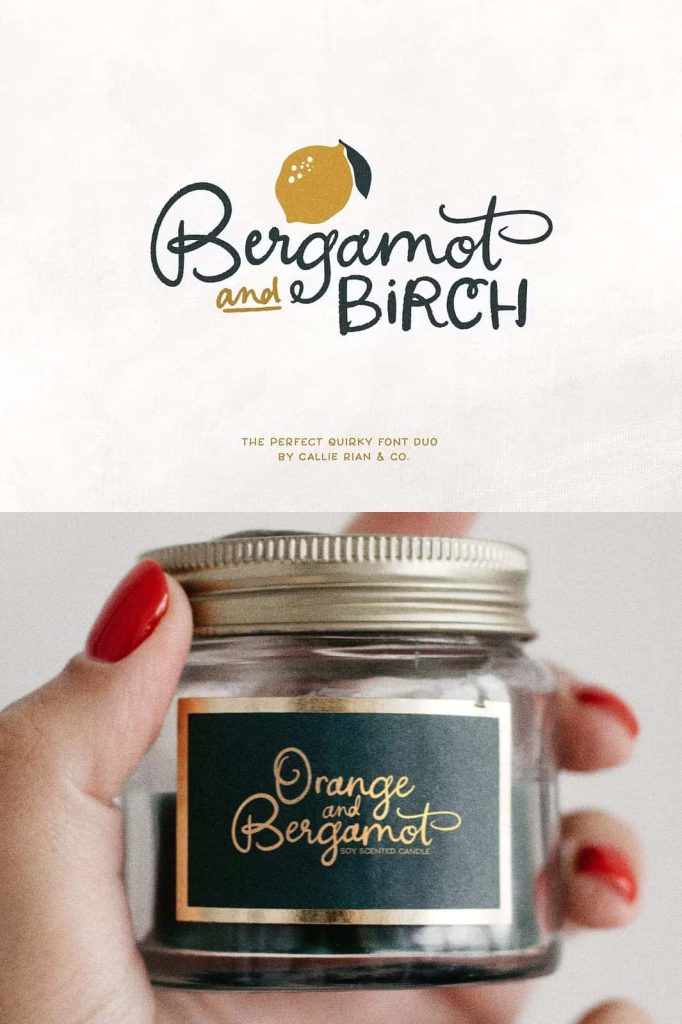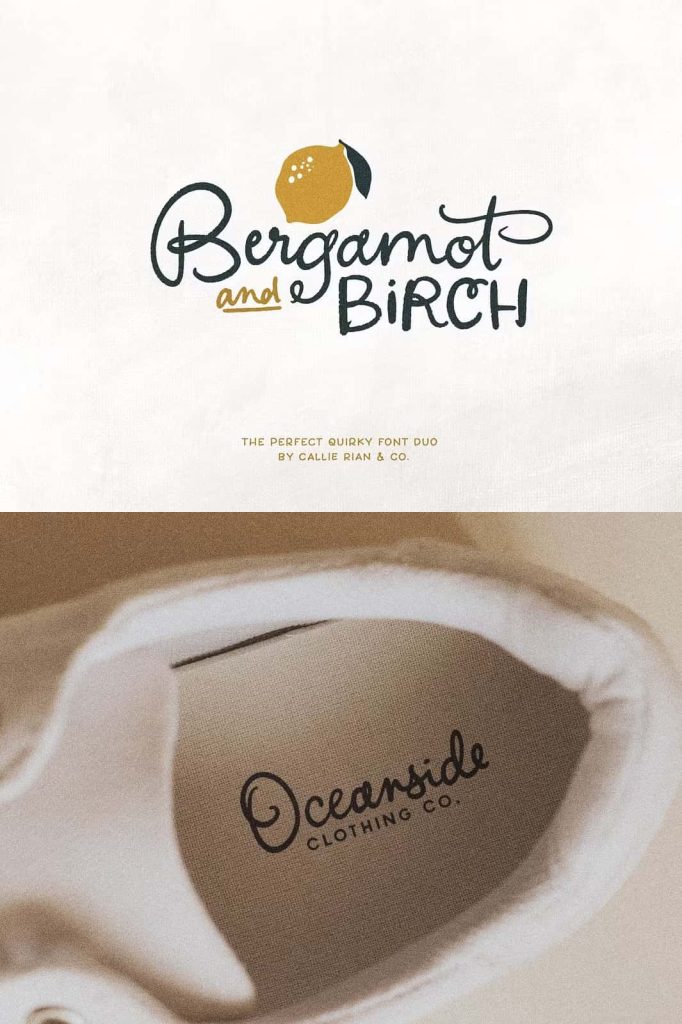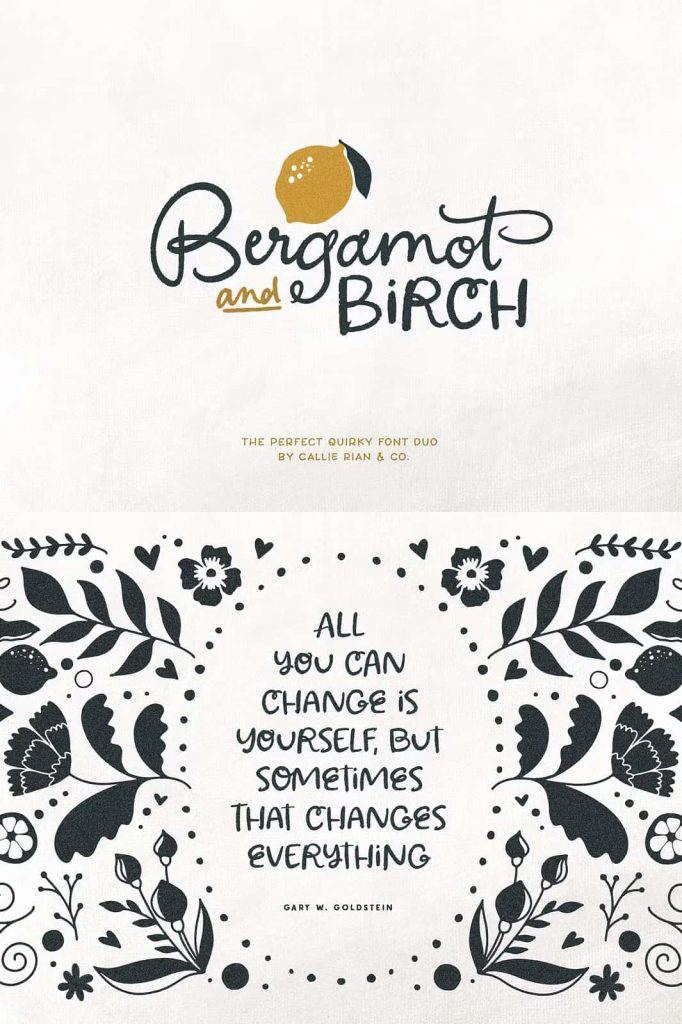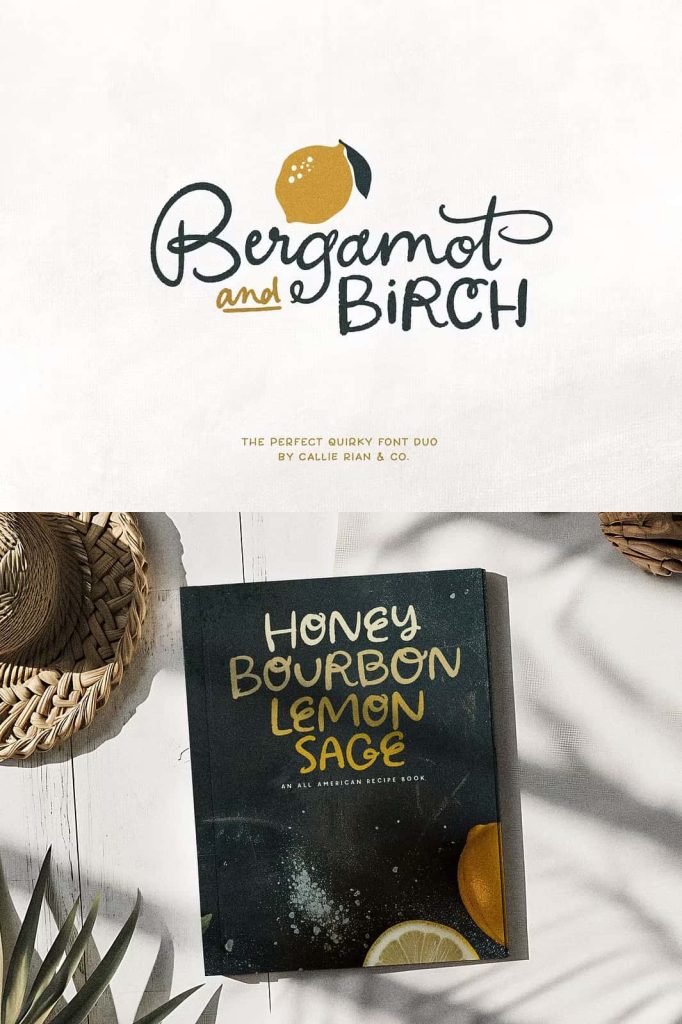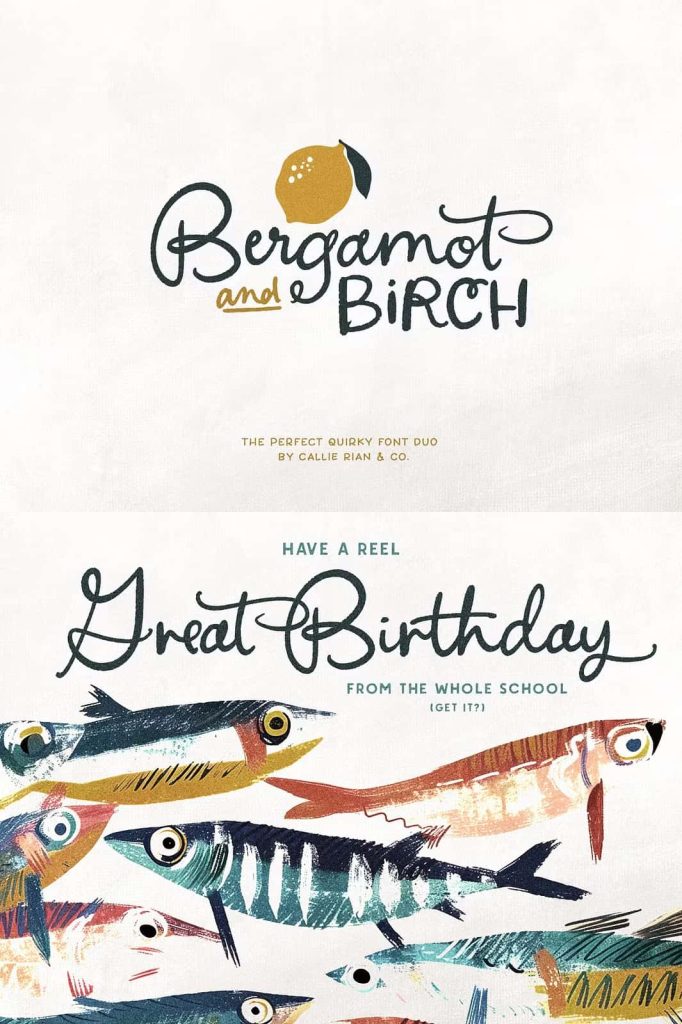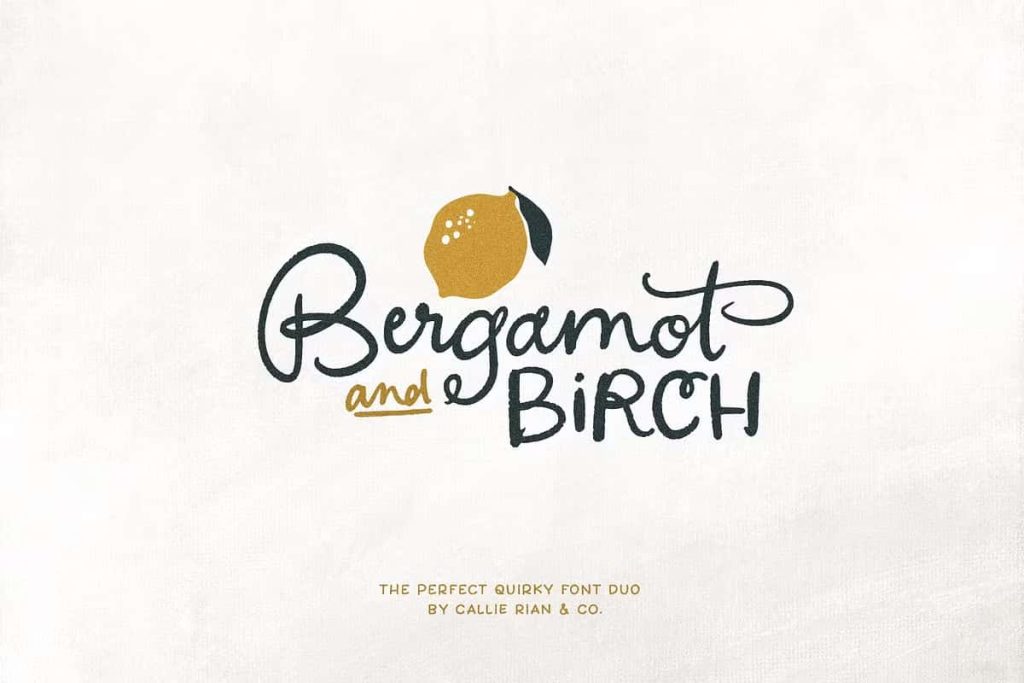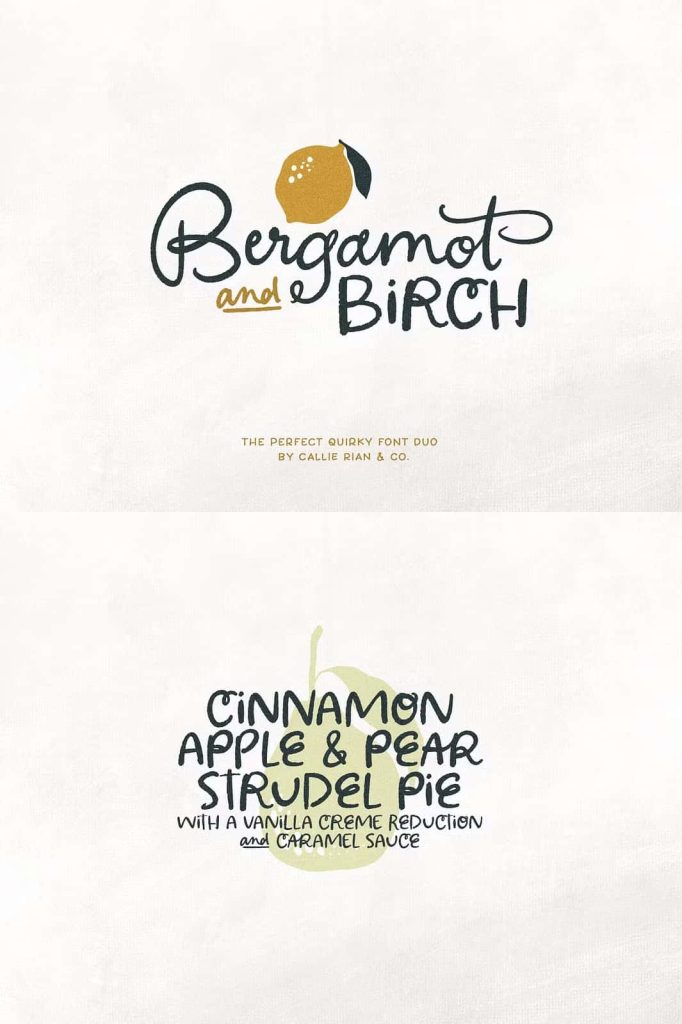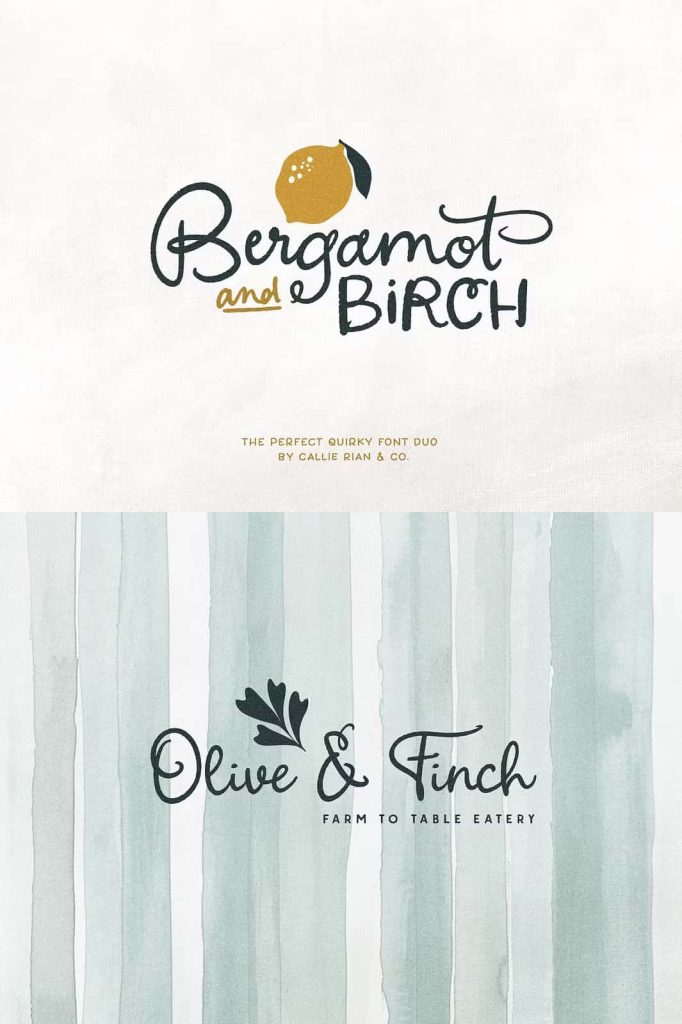
Say hello to Bergamot & Birch, a quirky font duo designed to mimic the imperfections in organic handwriting. This sweet duo boasts over 90 alternates and ligatures, along with language support and select catchwords in both the sans serif and script.